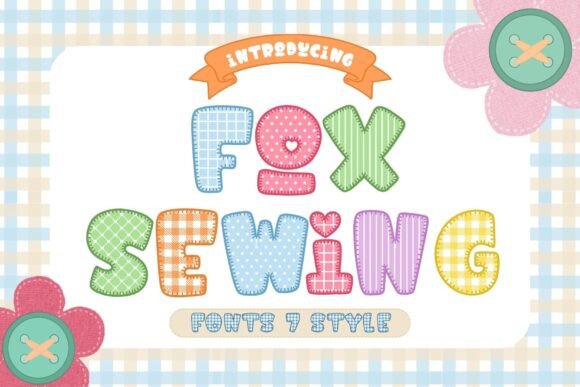
Introducing Fox Sewing Font: The Ultimate Choice for Playful and Charming Designs
Are you looking for a font that can add a playful touch to your designs? Look no further than Fox Sewing Font! This charming and versatile font family consists of 7 unique styles that are perfect for a wide range of projects, from children’s creations to holiday-themed designs. In this article, we’ll explore the features and benefits of Fox Sewing Font and show you how to make the most of this amazing font family.
What is Fox Sewing Font?
Fox Sewing Font is a delightful font family designed to bring a fun and cute aesthetic to your designs. With 7 unique styles to choose from, you’re sure to find the perfect fit for your project. Whether you’re working on children’s books, holiday-themed creations, or simply want to add a playful touch to your designs, Fox Sewing Font is the perfect choice.
Key Features of Fox Sewing Font
- 7 Unique Styles: Fox Sewing Font comes with 7 unique styles, allowing you to experiment with different looks and feels for your designs.
- Playful and Charming: This font family is designed to add a playful and charming touch to your designs, making it perfect for children’s projects, holiday-themed creations, and more.
- Versatile: Fox Sewing Font is versatile and can be used for a wide range of projects, from invitations and stationery to social media posts and greeting cards.
Use Cases for Fox Sewing Font
Fox Sewing Font is perfect for a wide range of projects, including:
- Children’s Projects: Use Fox Sewing Font to create engaging and fun designs for children’s books, activity sheets, and more.
- Holiday-Themed Creations: Add a playful touch to your holiday-themed designs, such as Christmas cards, Halloween invitations, and more.
- Invitations and Stationery: Use Fox Sewing Font to create stunning invitations, lovely stationery, and more.
- Social Media Posts: Add a playful touch to your social media posts and make them stand out with Fox Sewing Font.
- Greeting Cards: Use Fox Sewing Font to create heartwarming greeting cards for special occasions.
Benefits of Using Fox Sewing Font
There are many benefits to using Fox Sewing Font, including:
- Unique and Playful Designs: Fox Sewing Font allows you to create unique and playful designs that will stand out from the crowd.
- Time-Saving: With 7 unique styles to choose from, you can save time and effort by having a range of options at your fingertips.
In conclusion, Fox Sewing Font is a charming and versatile font family that is perfect for adding a playful touch to your designs. With 7 unique styles to choose from, you’re sure to find the perfect fit for your project. Whether you’re working on children’s projects, holiday-themed creations, or simply want to add a playful touch to your designs, Fox Sewing Font is the ultimate choice. So why wait? Add Fox Sewing Font to your font collection today and start creating eye-catching designs that will stand out from the crowd!
- What is Fox Sewing Font?: Fox Sewing Font is a charming and versatile font family with 7 unique styles, perfect for adding a playful touch to your designs.